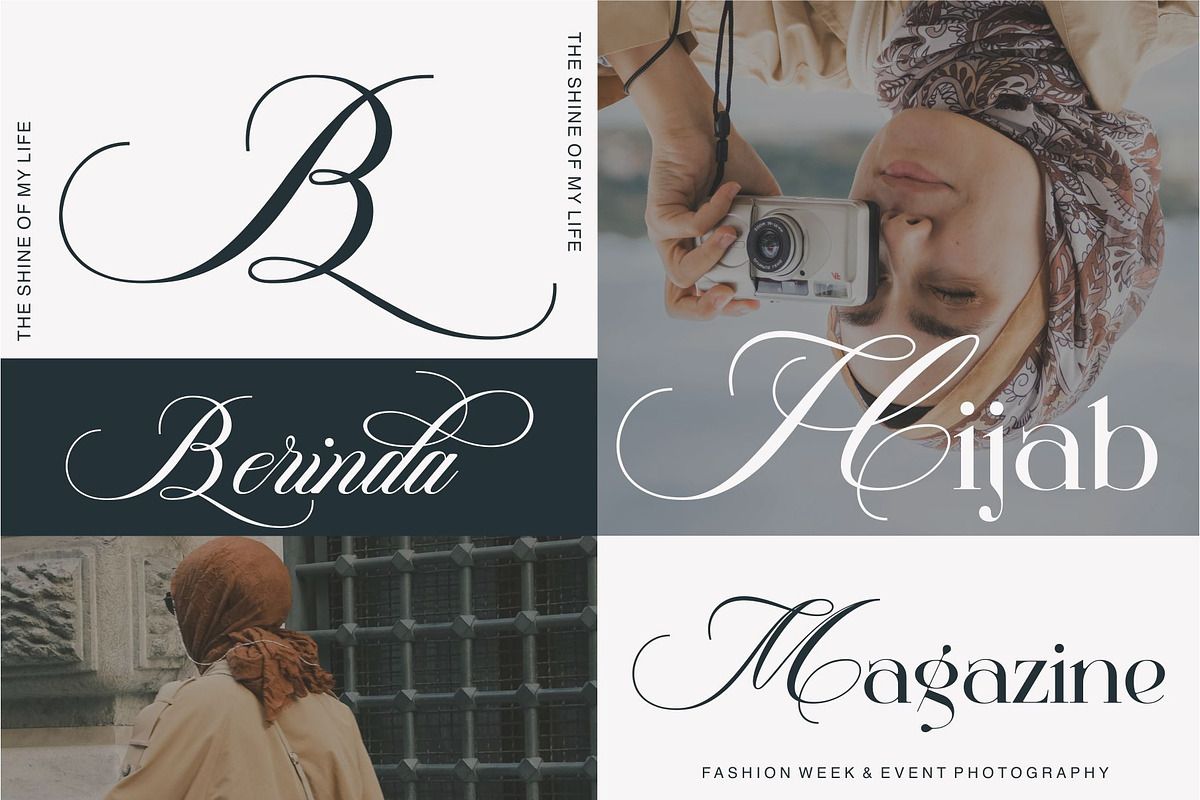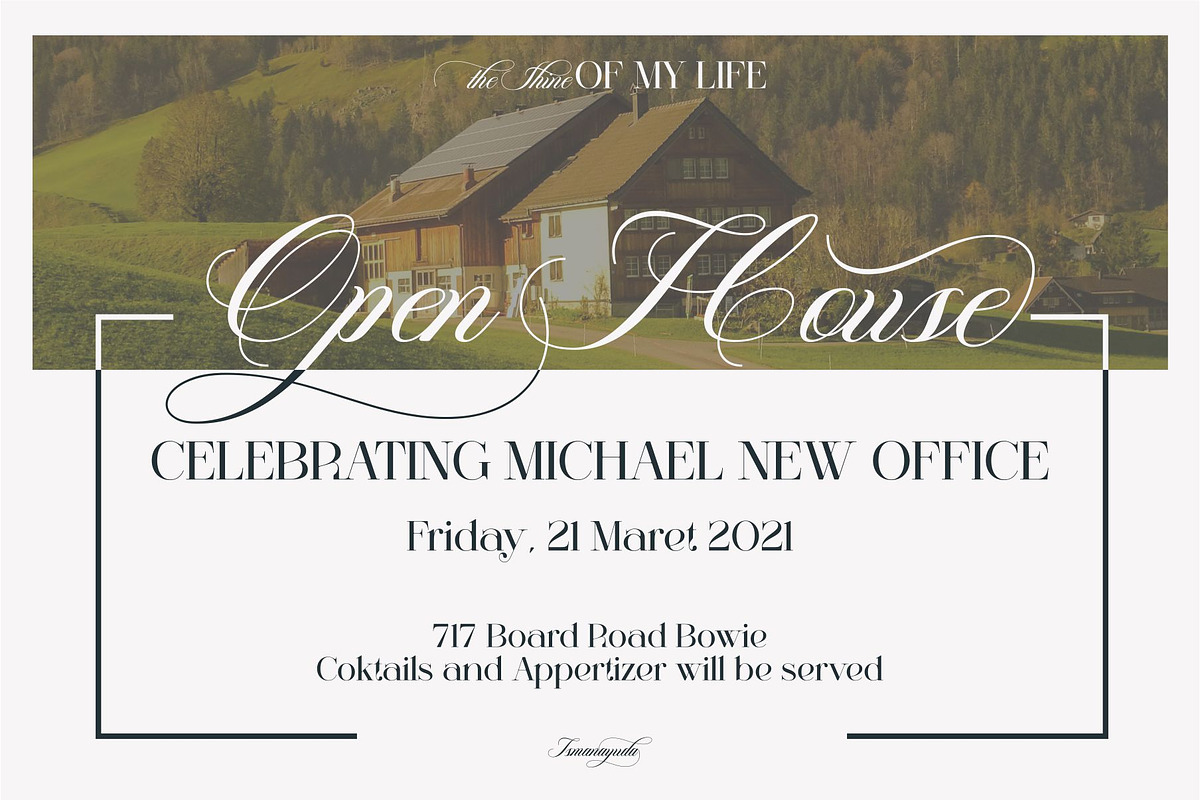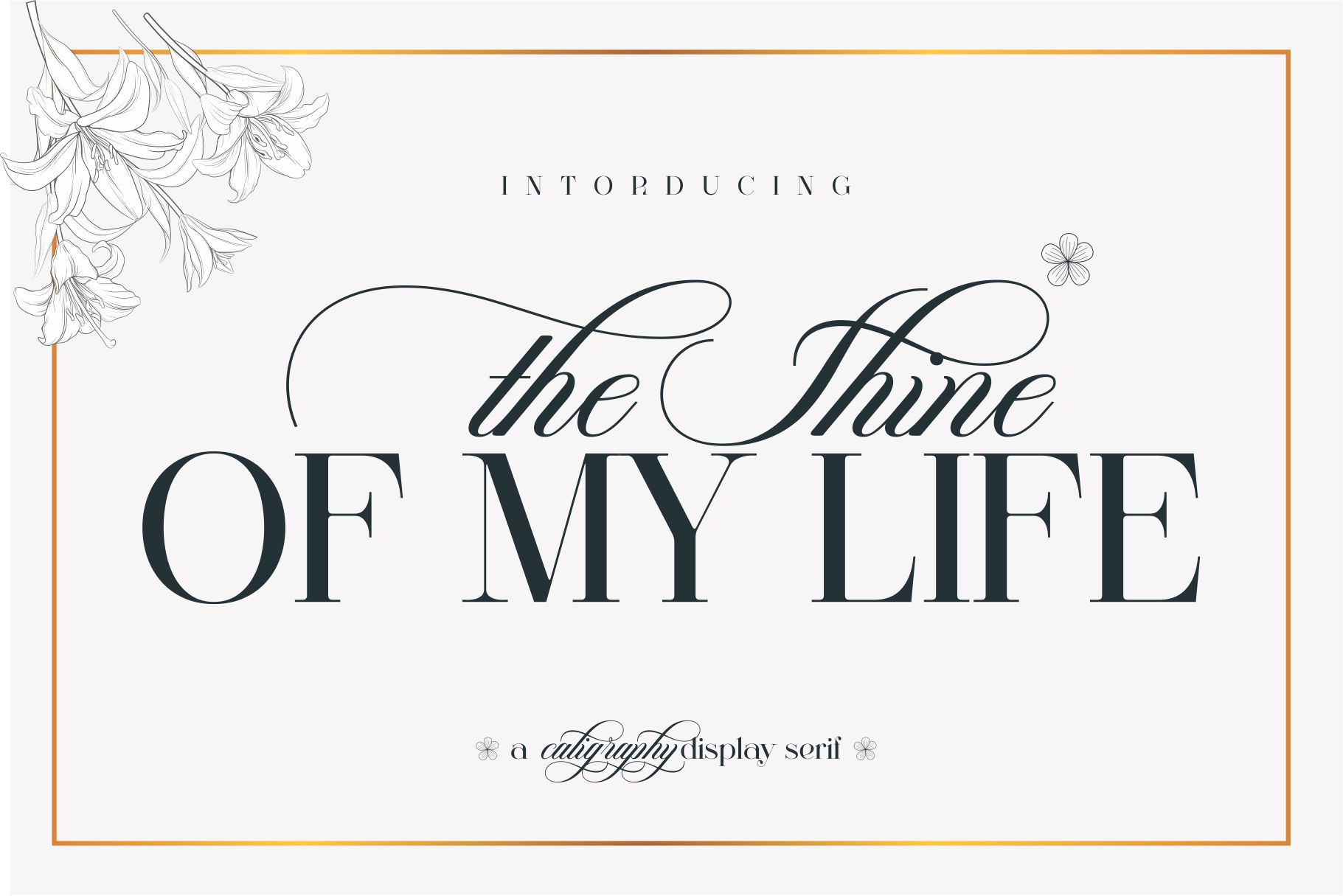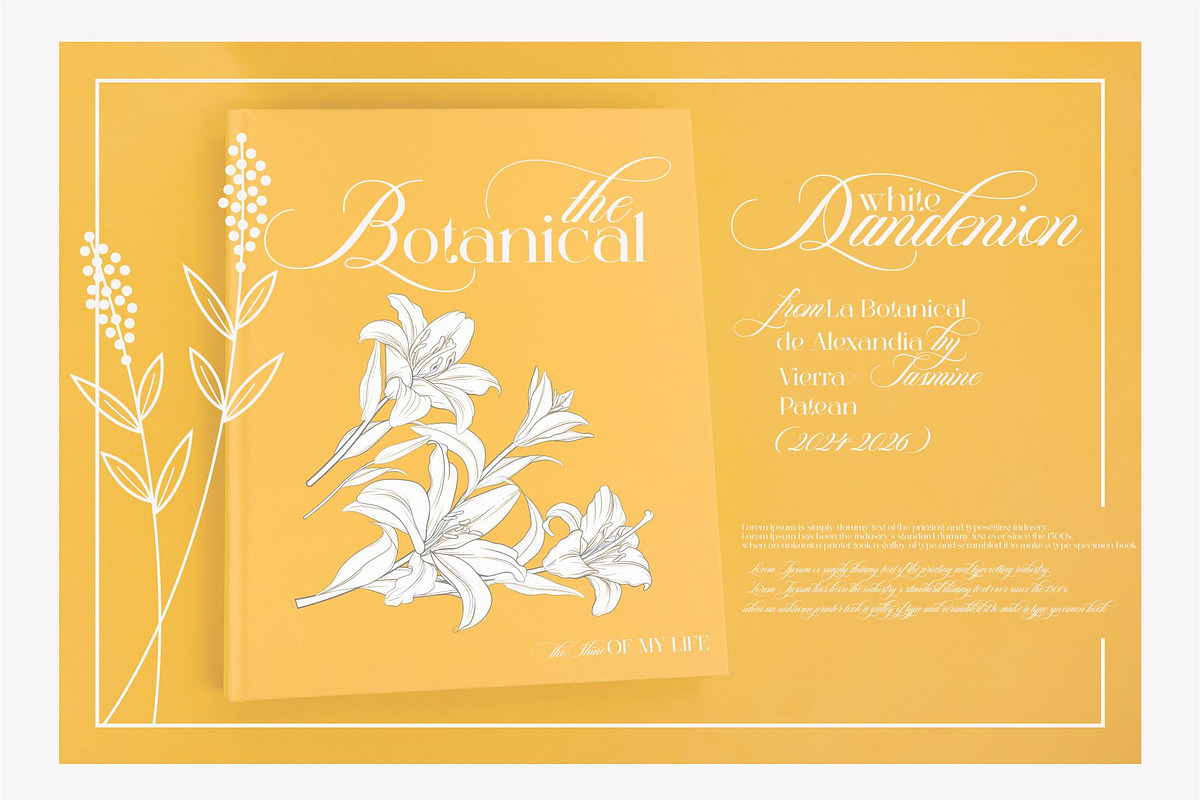
The Shine Of My Life Font Duo
The Shine Of My Life is a stunning font duo (serif display and script). Fall in love with its incredibly distinct and timeless style and use it to create spectacular designs!
This font is suitable for invitation cards, decorations, clothing products, greeting cards and others.
font that has a classic, feminine and elegant style. Masterfully designed to become a true favorite, this font has the potential to bring each of your creative ideas to the highest level!